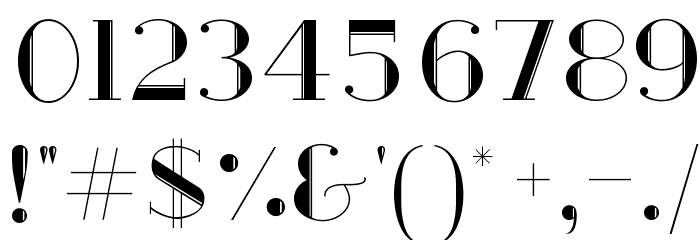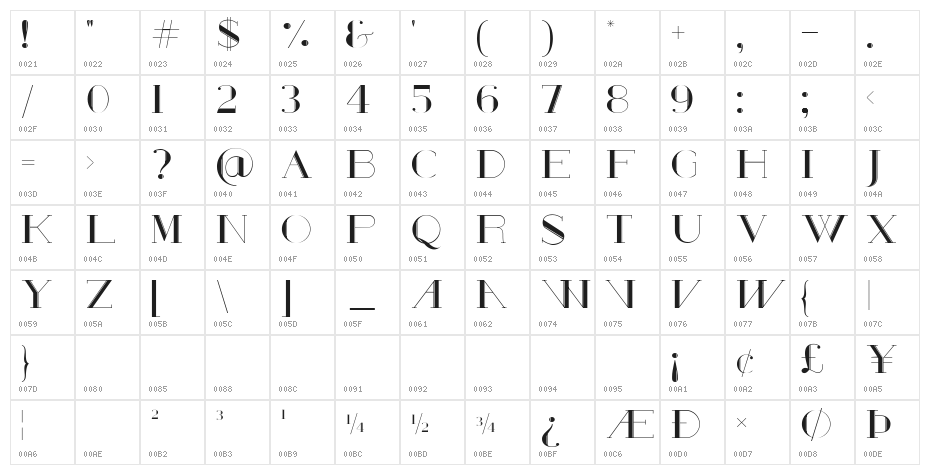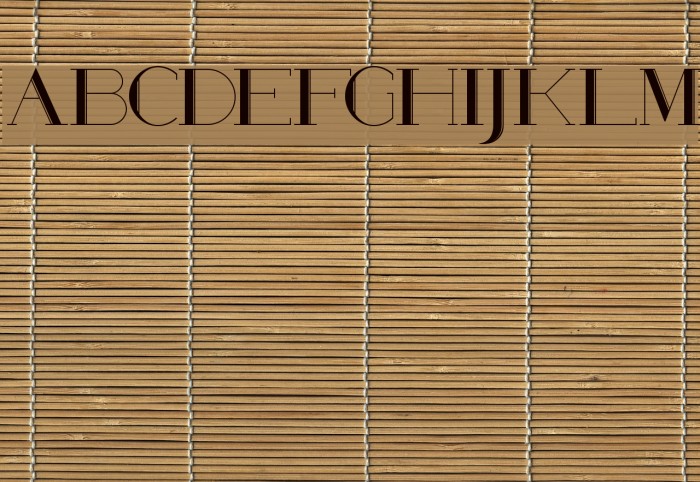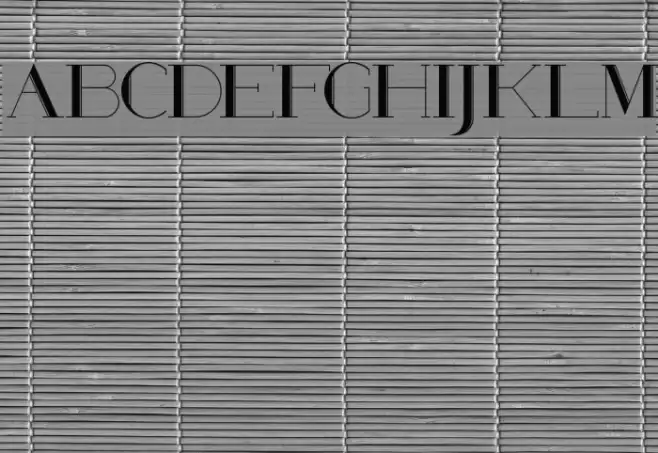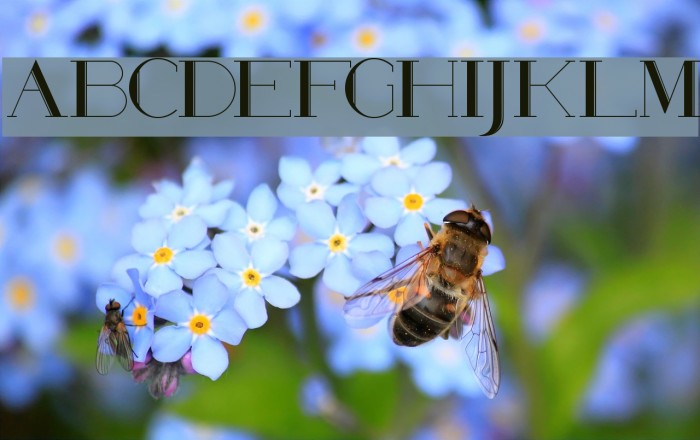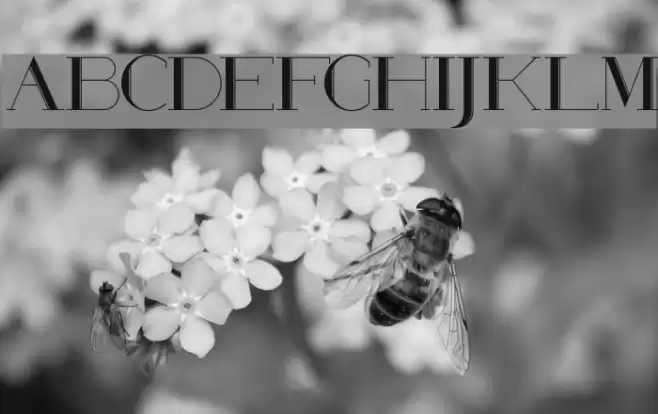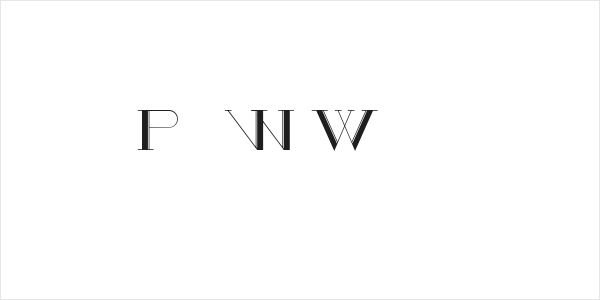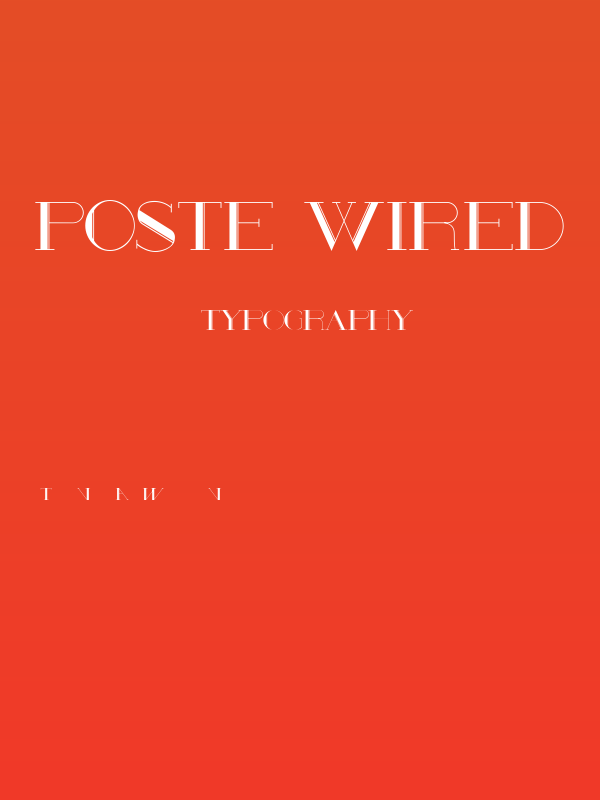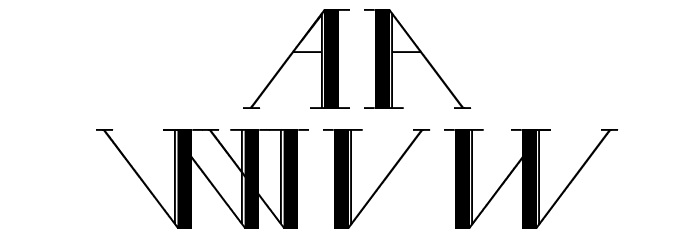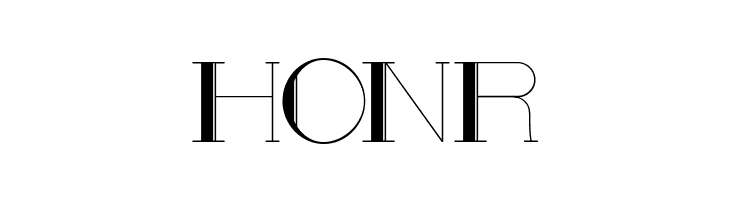
Poste Wired Font
Poste Wired Description
This font exhibits a striking and modern design with high contrast between thick and thin strokes. The uppercase letters are elegantly elongated, with sharp serifs that add a touch of sophistication. The lowercase letters maintain a consistent style, complementing the uppercase with a refined appearance. Numbers are bold and clear, ensuring readability. Special characters are uniquely styled, maintaining the overall aesthetic. This font's distinct and stylish appearance makes it suitable for various creative applications.
| Proposed Projects | Ideal for luxury branding, editorial design, high-end product packaging, and fashion magazines. |